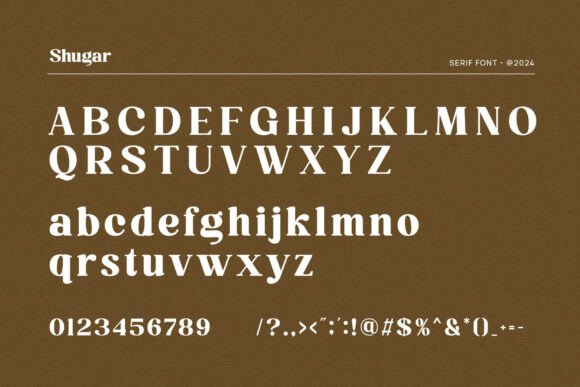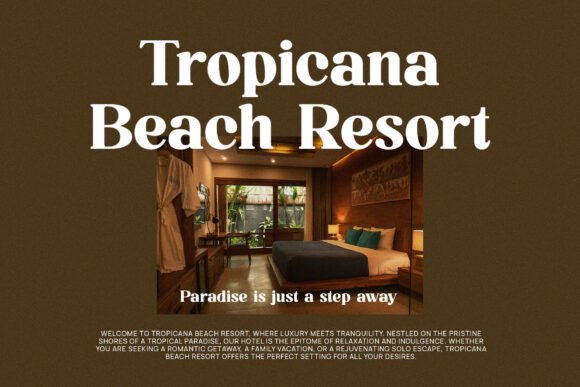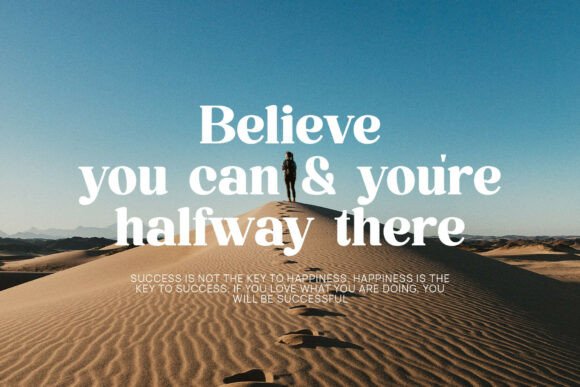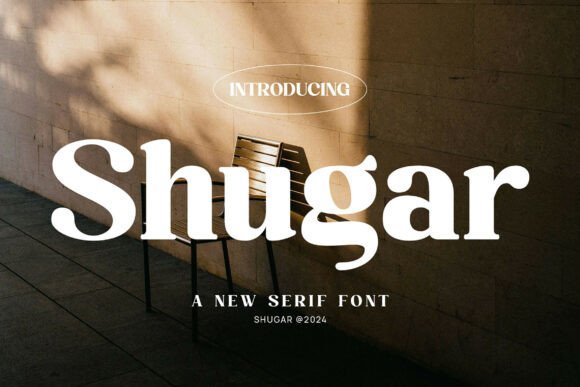
Introduction to Shugar Font
Shugar – Classy & Stylish Serif Introducing our new Shugar, a modern serif font with an elegant style.
This is perfect for branding, logos, invitations, magazines, product packaging, and more .